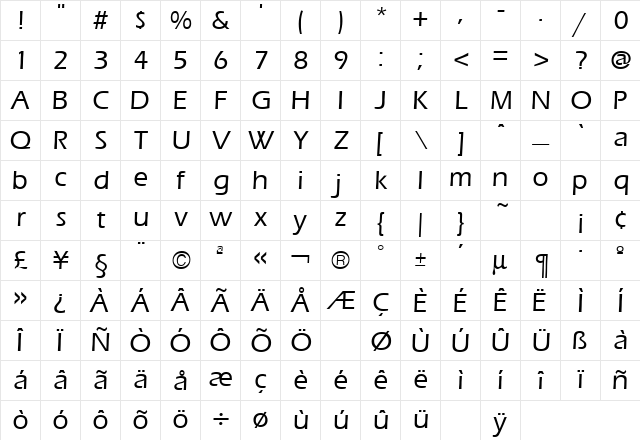
Eras Medium Regular Free Font
Eras Medium Regular
Design Context for Eras Medium
Eras Medium is a composed and adaptable typeface that performs quietly and consistently across a wide range of design contexts.
Pro Tip: Use Eras Medium in both headline and body roles to test its range before committing to a single application.